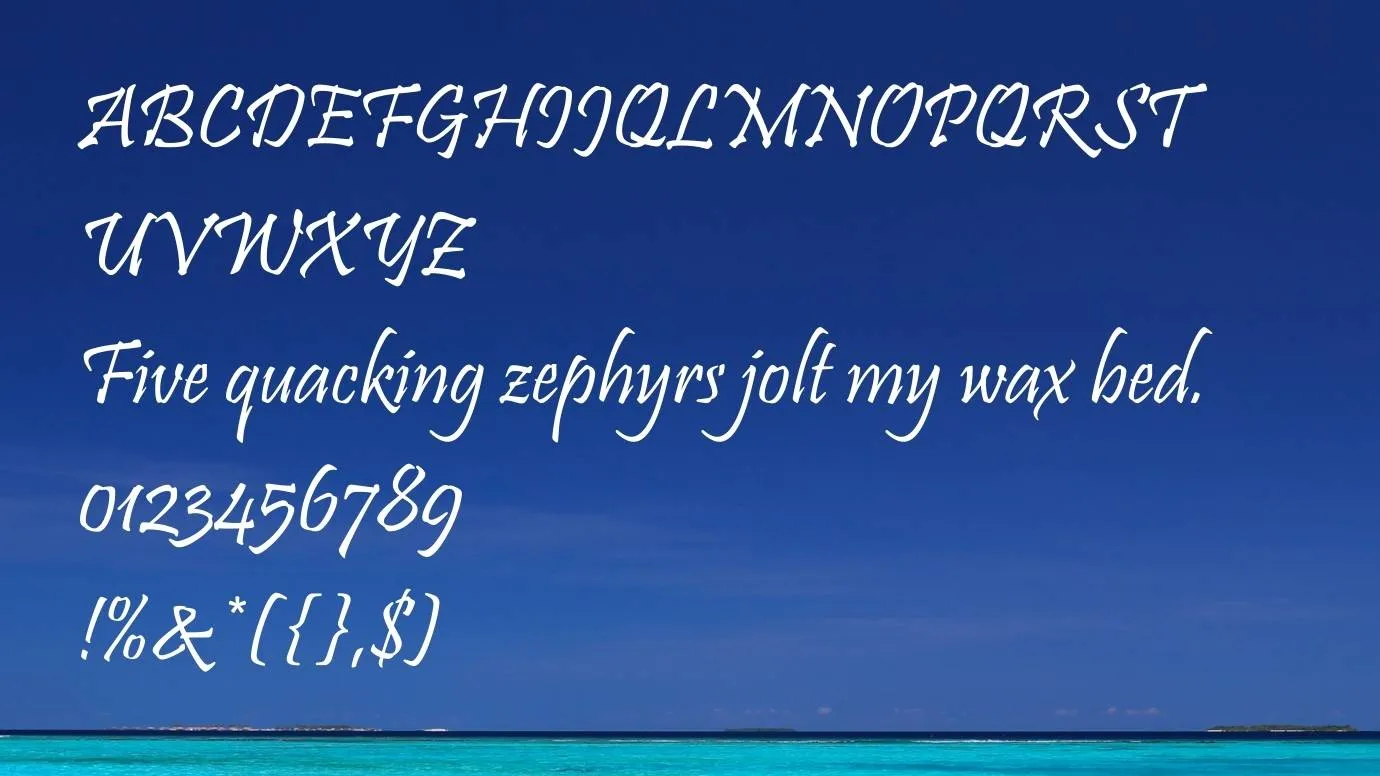
Today we are introducing a typeface that has a stylish and handwritten typeface named Pristina Font. It is a calligraphy font that has been made with quirky alphabets that give the sensation of handwritten. This font style can also give formal vibes to your designs. It can easily make your design attractive and eye-catchy. Different scriptwriters and article writers are utilizing this exquisite typeface as texture content in their scripts.
Every texture in this font type is meticulously developed, giving your design an exquisite and official appearance. Its executive appearance makes it ideal for designing invitation cards, logos, letters, and applications, among other things. It is also well-known among designers due to its formal and appealing text features. As a result, many designers use this typeface in a variety of projects and ideas. This font has a lovely texture that is both appealing and distinctive.
Designer of Pristina Font
This stylish and amazing font has been designed by an English designer named Phill Grimshaw. He is a well-known designer who has also created many of the famous font styles that are used in a number of designs and projects.
This typeface has been constructed with three styles Regular, Bold, and Italic. These styles of this family are comprised of capital letters, glyphs, punctuations, numbers, symbols, special characters, and many languages support.
View of Pristina Font
| Style | Calligraphy |
| Designer | Phill Grimshaw |
What font is Pristina Font?
This font is a Calligraphy font style that has a handwritten and stylish texture appearance.
Who designed Pristina Font?
This stylish and amazing font has been designed by an English designer named Phill Grimshaw.
What font is closest to Pristina Font?
There are also some fonts that are similar to this font style. But we have searched that Kaeshum Font is the most similar to this font style.
Is Little Pristina Font Worth Using?
This typeface has been used by many designers in a variety of designs. So, yes this typeface is worth using.